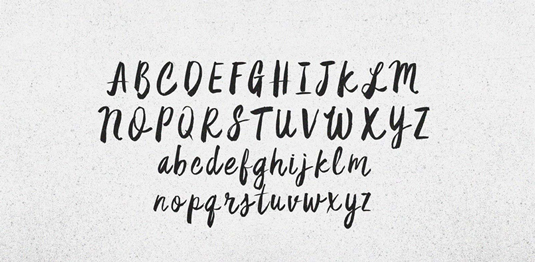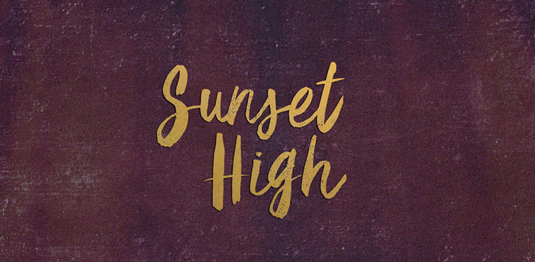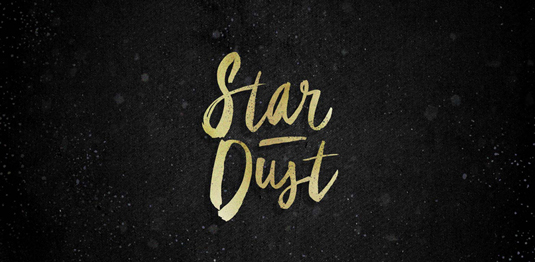
Font of the day: Star Dust
Star Dust from BLKBK
Rounding off our fonts of the week is hand-drawn design Star Dust from graphic design and visual communications studio BLKBK. A beautiful script typeface, Star Dust is perfect for stationery, packaging and much more.